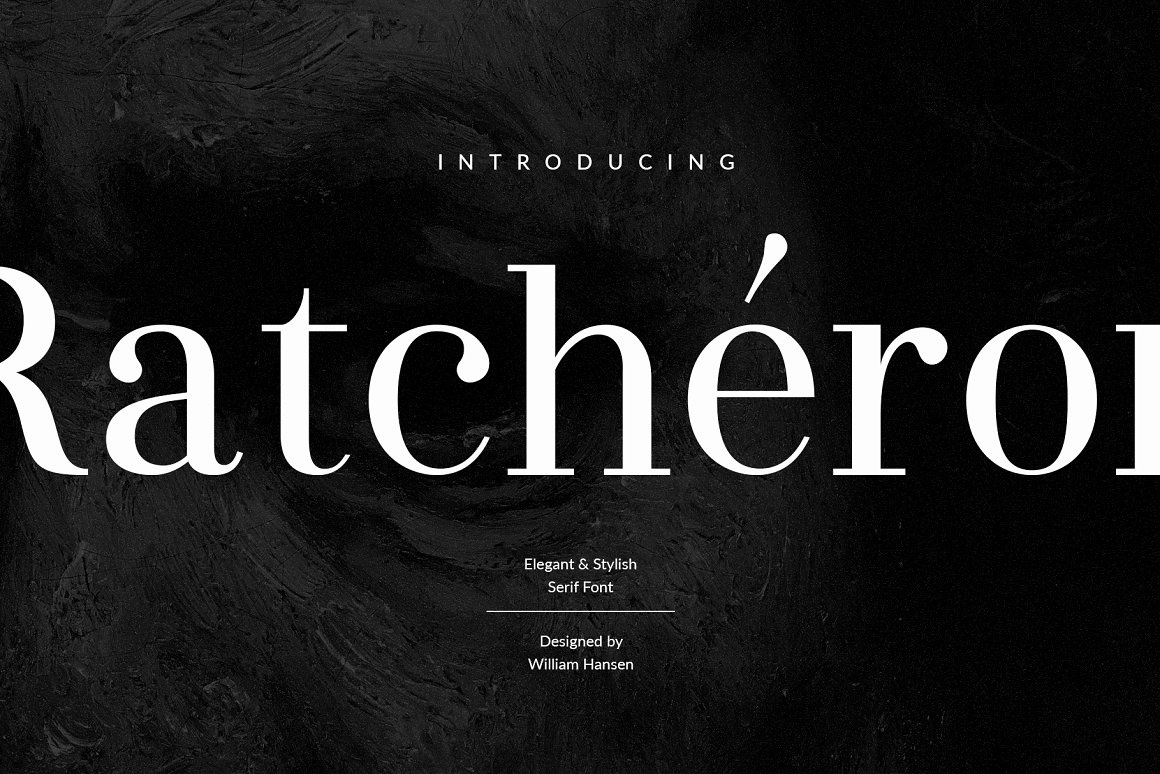
Ratcheron Elegant Serif Font
Hello, friends! I hasten to please you with my new product - Ratcheron. Elegant, stylish, beautiful serif font for your branding, packaging, headlines, posters, presentations, short texts, blog, web design, logo projects, and other creatives!